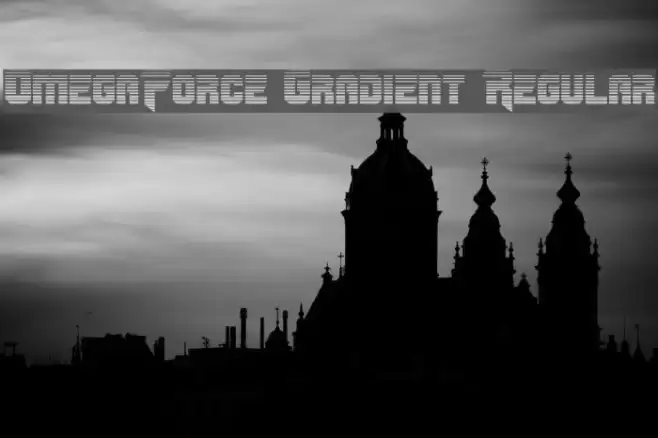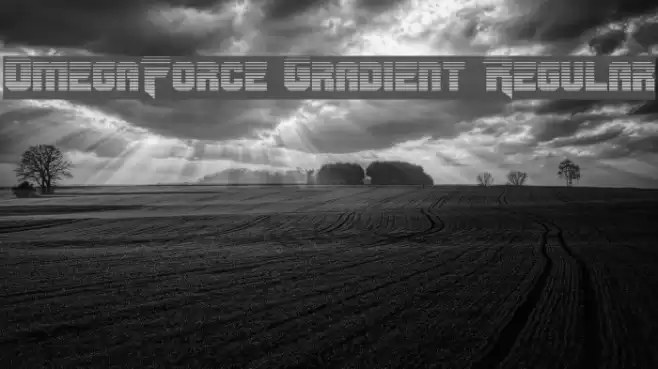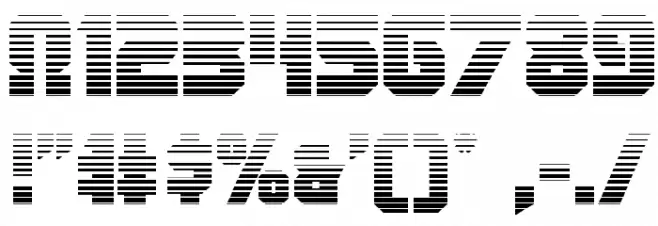
OmegaForce Gradient Regular Font
OmegaForce Gradient Regular Description
This font features a bold, futuristic design with a distinct gradient effect that gives it a three-dimensional appearance. The characters are constructed with horizontal lines that create a sense of movement and depth. The uppercase and lowercase letters maintain a consistent style, emphasizing geometric shapes and sharp angles. The numbers and special characters follow the same design principles, ensuring uniformity across all glyphs. This font's unique aesthetic makes it stand out, ideal for projects that require a modern and dynamic look.
A bold, futuristic font with a gradient effect and geometric design from Uncategorized fonts.
- Proposed Projects: Ideal for sci-fi themed projects, video game titles, tech branding, and futuristic posters.